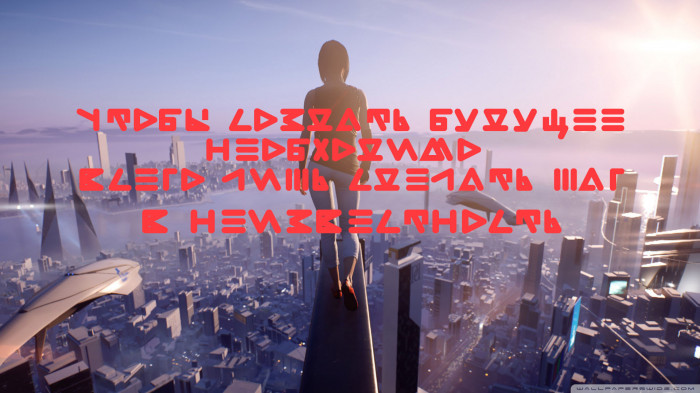
ЕЩЁ ОДИН!? ?
Very proud of this daring cyrillic.
Congratulations! FontStruct Staff have deemed your FontStruction worthy of special mention. “StepForward” is now a Top Pick.
Сделаю-ка из этого канадский силабирий.
Alt E = E4 "E"
Alt F, C & L = E4 "F, C & L"